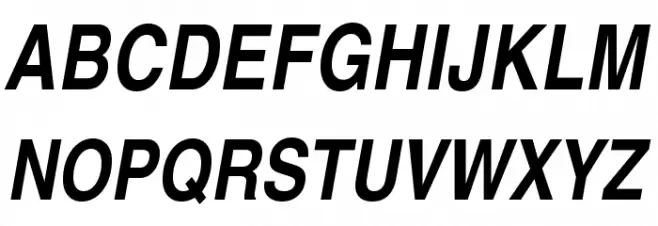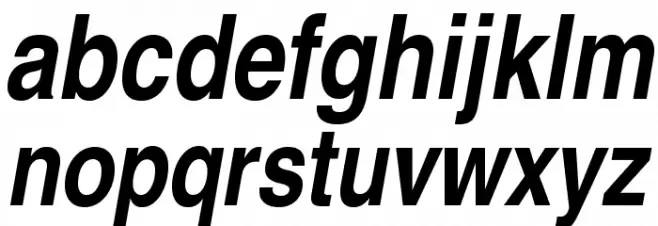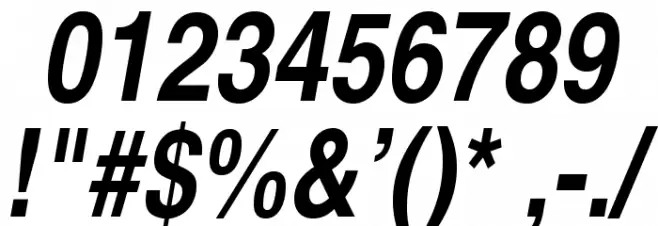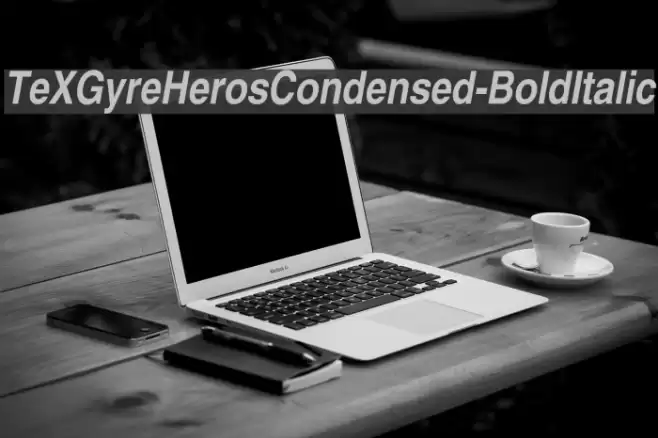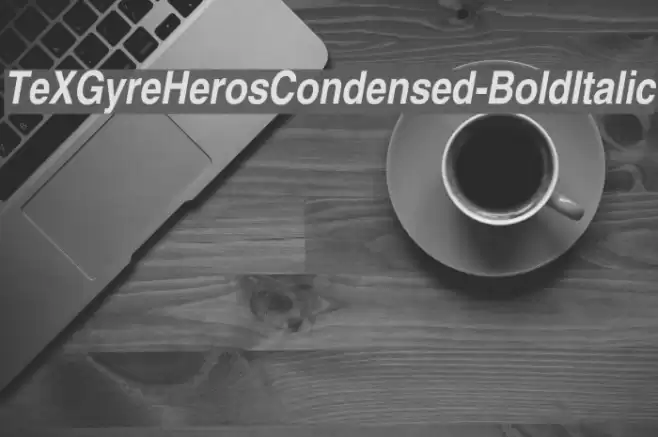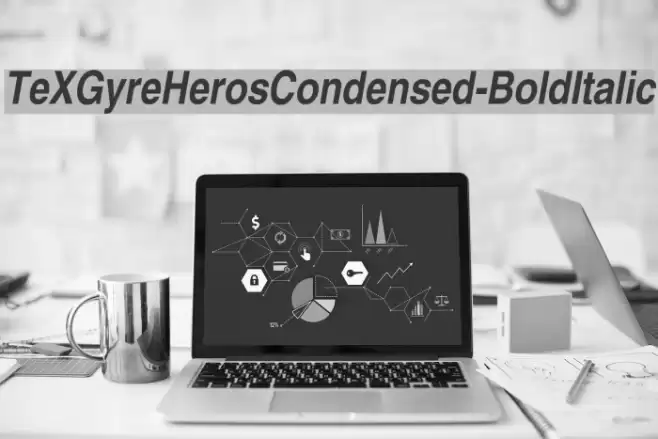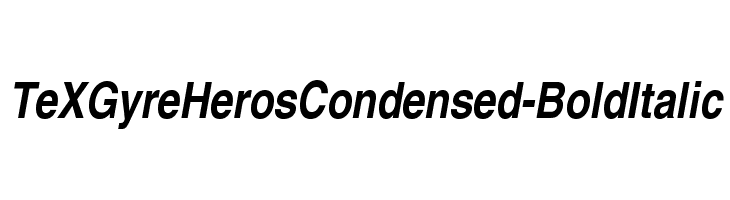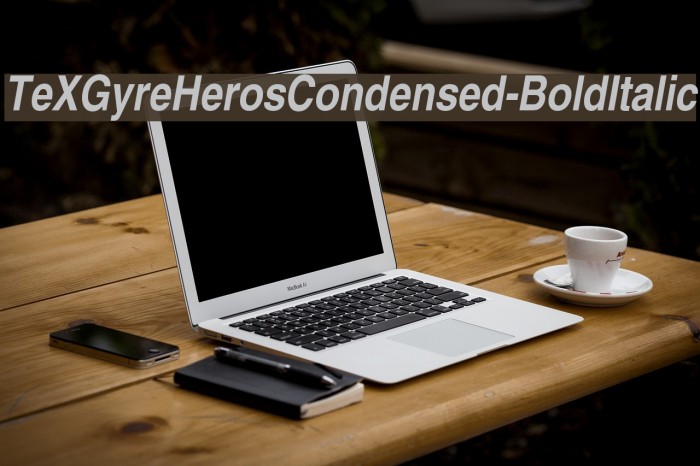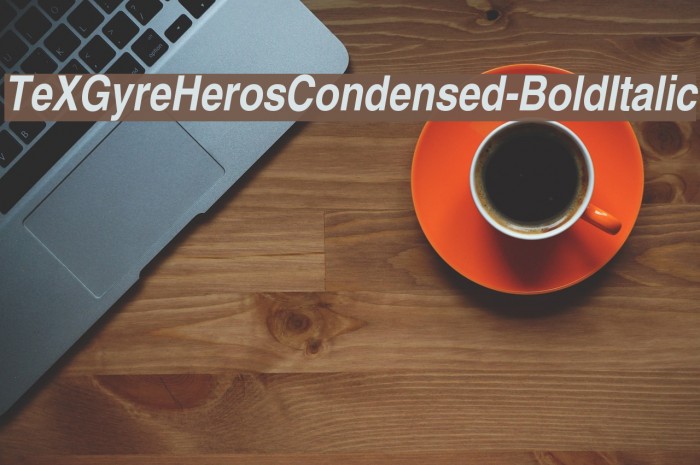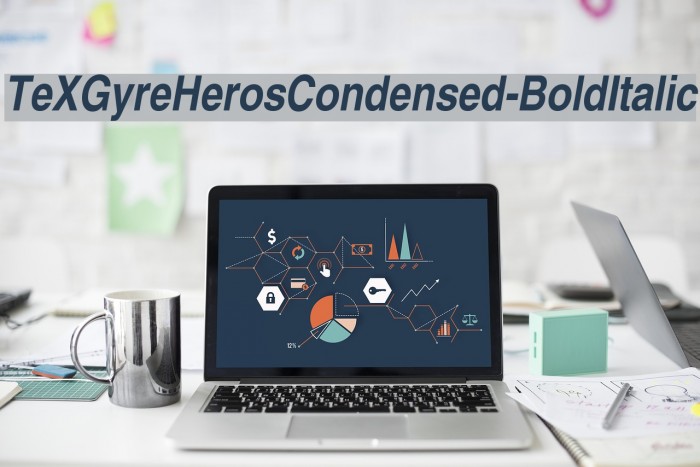
TeXGyreHerosCondensed-BoldItalic
This font features a bold and italicized style with a condensed width, making it ideal for impactful and space-efficient text. The characters exhibit a modern sans-serif design with smooth curves and clean lines, enhancing readability while maintaining a strong visual presence. The uniform stroke width and slight slant add a dynamic and contemporary feel, suitable for various design applications. The font includes a full set of uppercase and lowercase letters, numbers, and a range of special characters, ensuring versatility in usage.
A bold, italic, and condensed sans-serif font with a modern and dynamic style.
- Proposed Projects: Ideal for headlines, posters, branding, and advertising where a strong and modern impact is needed.
- Width: Condensed
- Use Case: Headlines, Logos, Posters